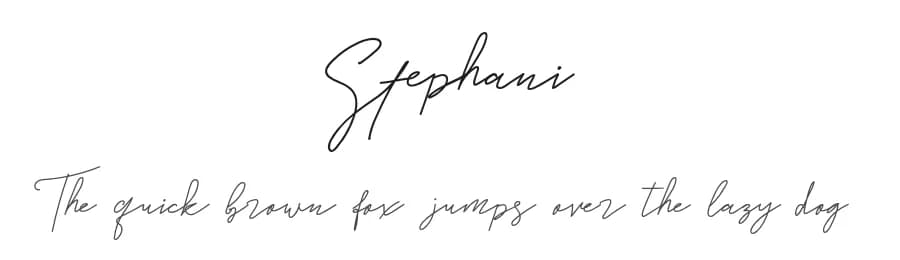
About Stephani Font
Introducing Stephani - Signature Font
Stephani is a beautiful signature font, can make your design project look elegant, classy and modern, this font perfect for branding, invitation, stationery, wedding designs, social media posts,
product packaging, product designs, label, photography, watermark, special events or anything.
Stephani comes with full set of uppercase and lowercase letters, 38 ligatures, symbols and numerals
Stephani Font is a script font that shines as a display or heading face. Pair it with a clean sans-serif or serif font for body text β the contrast creates a clear hierarchy while the two styles stay balanced and easy to read.
Stephani Font